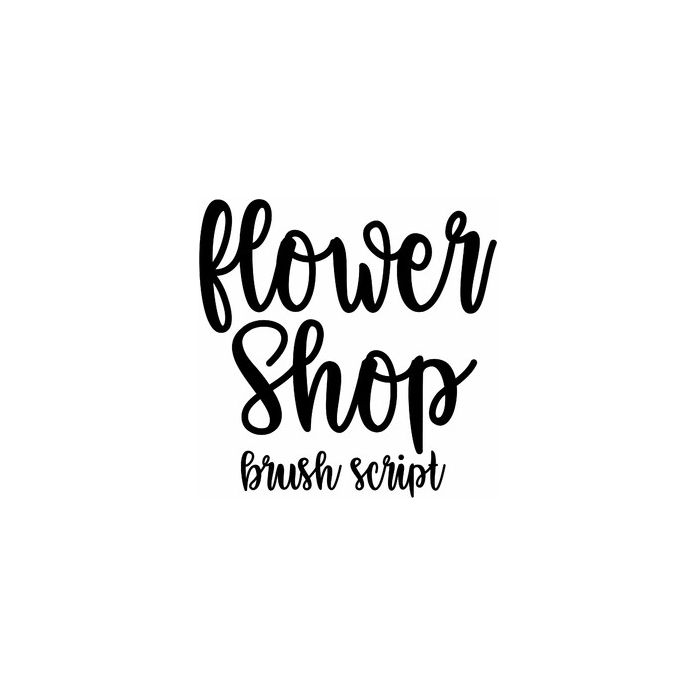
Flower Shop Brush Script is a cute handwriting font for birthday and holiday cards, signs, monograms, artwork, and projects. Includes alphabet, numbers, and punctuation.